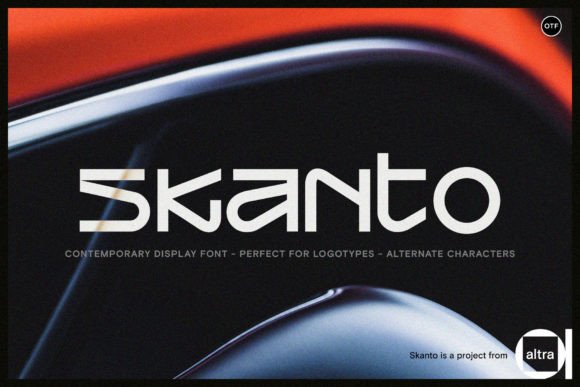
Adorn your digital creations with the captivating elegance of Skanto, a contemporary display font designed to add a touch of modern sophistication to your designs. Crafted with meticulous precision by Studio Altra, Skanto is not just a font; it's an artistic expression that transforms your words into visually stunning masterpieces. Whether you're creating logos, posters, social media graphics, or website designs, Skanto is the perfect font to make a bold statement and leave a lasting impression.
With its clean lines, sharp angles, and distinctive character, Skanto exudes a sense of modernity and minimalism. Each letterform is carefully designed to strike a balance between legibility and visual appeal, ensuring that your text remains readable while still captivating your audience. The font's versatile nature makes it suitable for a wide range of design projects, from sleek and corporate to playful and artistic.
Imagine using Skanto to design a logo for your new business. The font's confident strokes and sharp edges convey a sense of professionalism and reliability, making it the perfect choice for creating a strong brand identity. Or, envision using Skanto to create eye-catching social media graphics that are sure to capture the attention of your audience. The font's unique character will make your posts stand out from the crowd and leave a lasting impression.